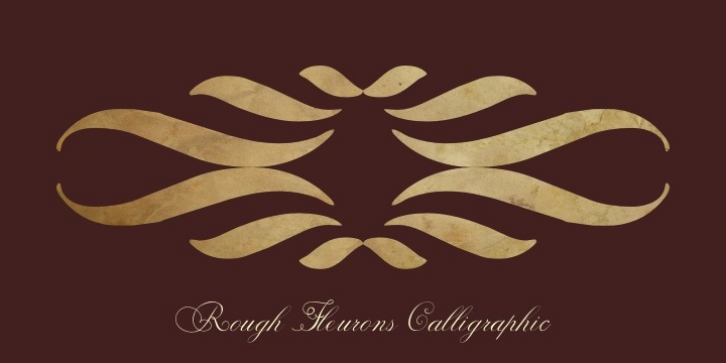
Rough Fleurons Calligraphic downloadDesigner: Paulo W
Publisher: Intellecta Design
A dingbat collection of various border and flourish like elements drawn with a calligraphic touch.